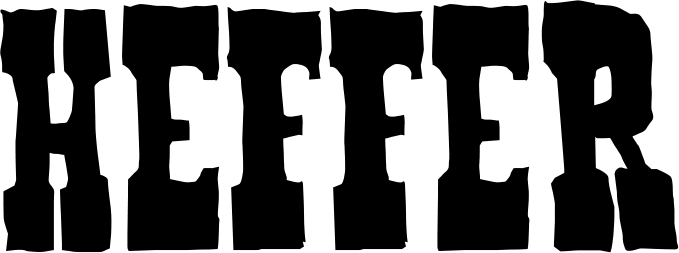
Heffer Font
Capture the cowboy spirit with this all-caps Western font. Heffer sports a raw look with little spacing. Its bold and solid lettering conveys the characteristics of the Wild West designs. These kinds of title block fonts…
Capture the cowboy spirit with this all-caps Western font. Heffer sports a raw look with little spacing. Its bold and solid lettering conveys the characteristics of the Wild West designs.
These kinds of title block fonts, sit especially well with movie posters, brand logos, apparel prints, etc. Download its font file instantly then visit the rest of our website for other styles of Western fonts and beyond.